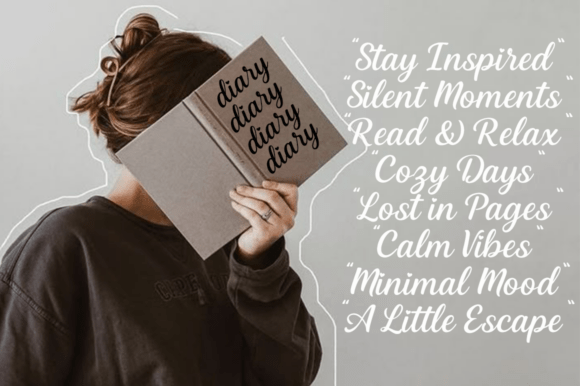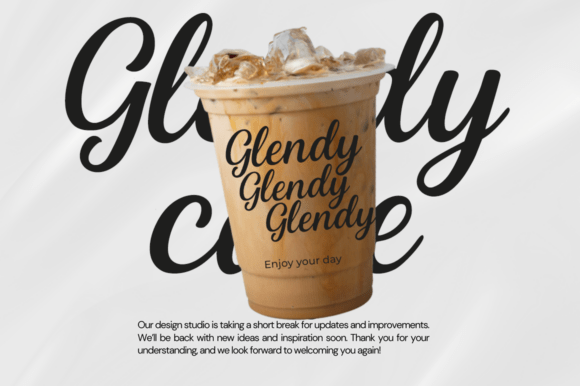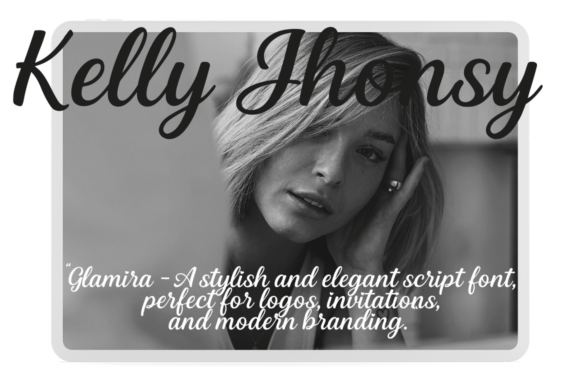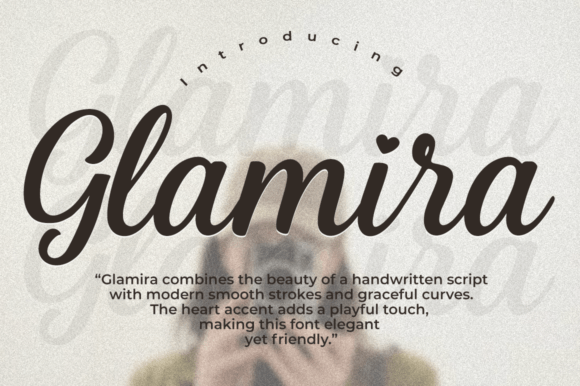
Introduction to Glamira Script Font
Glamira typeface is a contemporary script font crafted with sleek lines and captivating heart accents.
Known for its romantic elegance, Glamira font effortlessly elevates branding endeavors, invigorates invitations, adds grace to logos, and piques intrigue on packaging An ideal choice for social media as well, the Glamira font promises to imbue any project with a sophisticated and fashionable flair.
Key Features of Glamira Script Font
Why Choose Glamira Script Font?